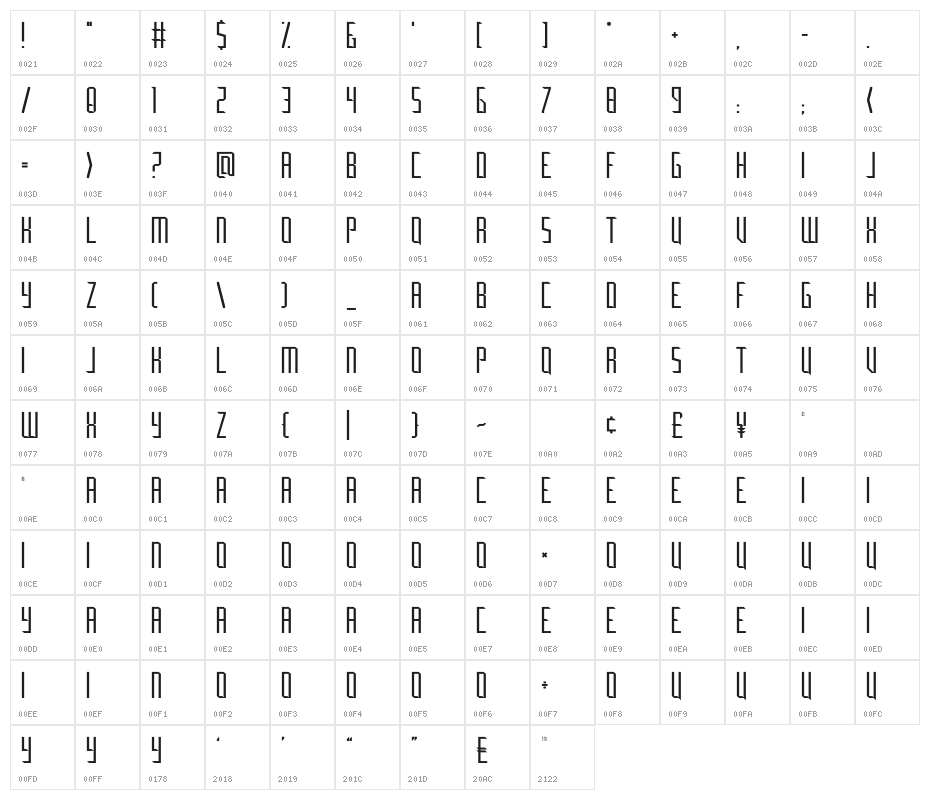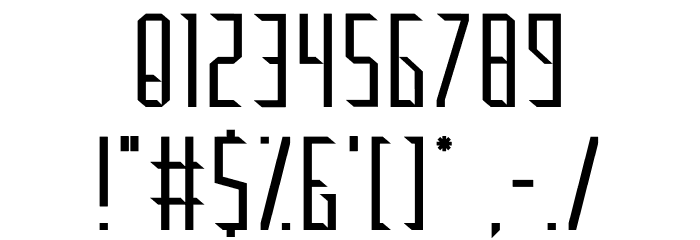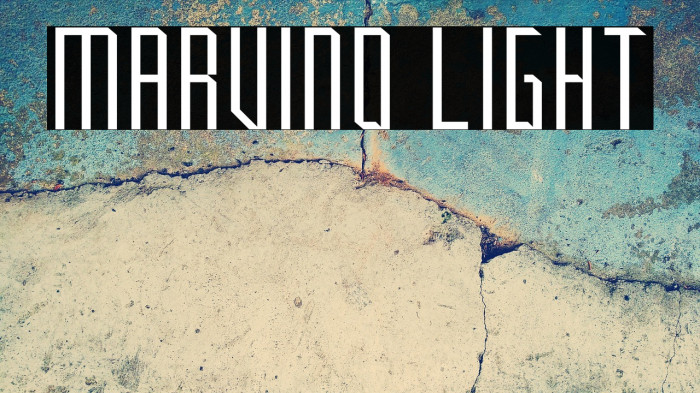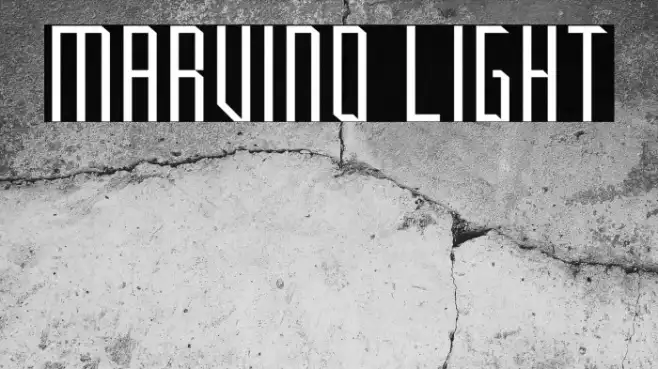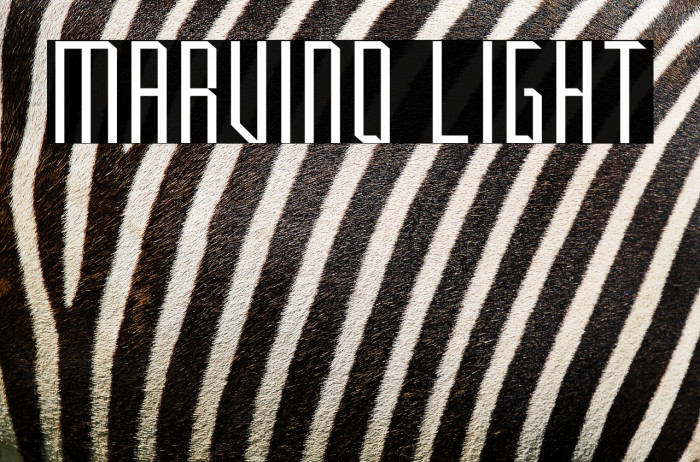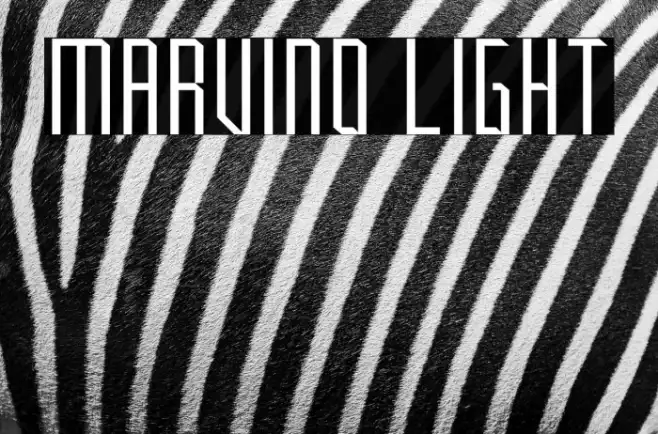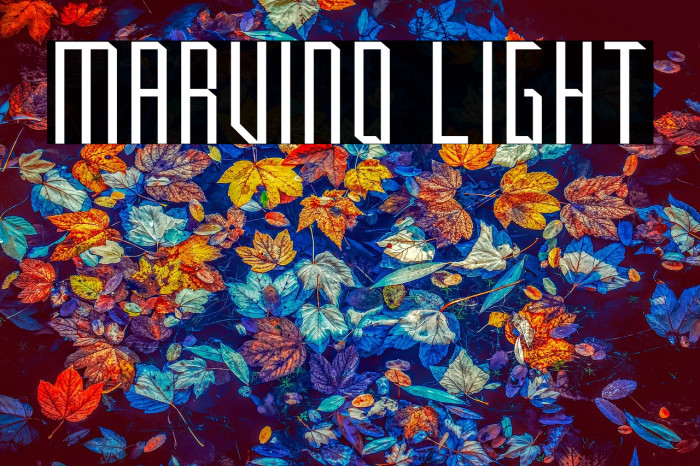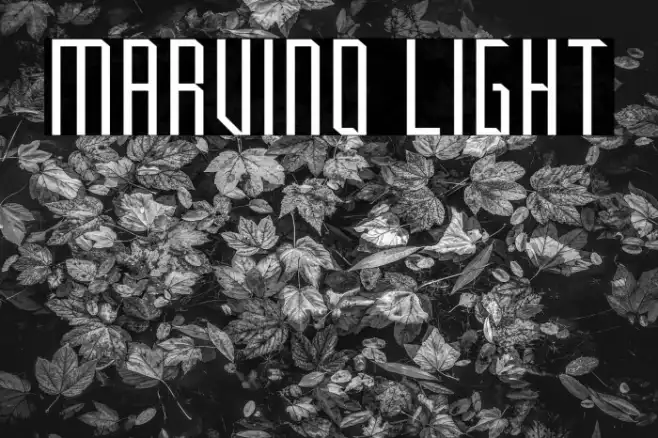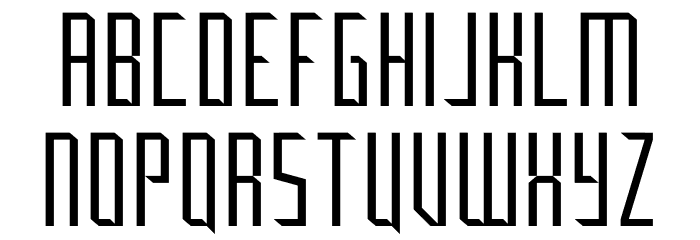
Marvino Light Font
Marvino Light Description
This font features a geometric and modern design with a distinct angular style. The characters are tall and narrow, giving them a sleek and contemporary appearance. The uppercase letters are uniform in height, while the lowercase letters maintain a consistent style, enhancing readability. The numerals are similarly designed, with sharp angles and a uniform height that matches the uppercase letters. The special characters are crafted to complement the overall aesthetic, maintaining the angular and geometric theme. This font is ideal for projects that require a modern and edgy look.
| Proposed Projects | Ideal for branding, posters, and modern digital interfaces. |